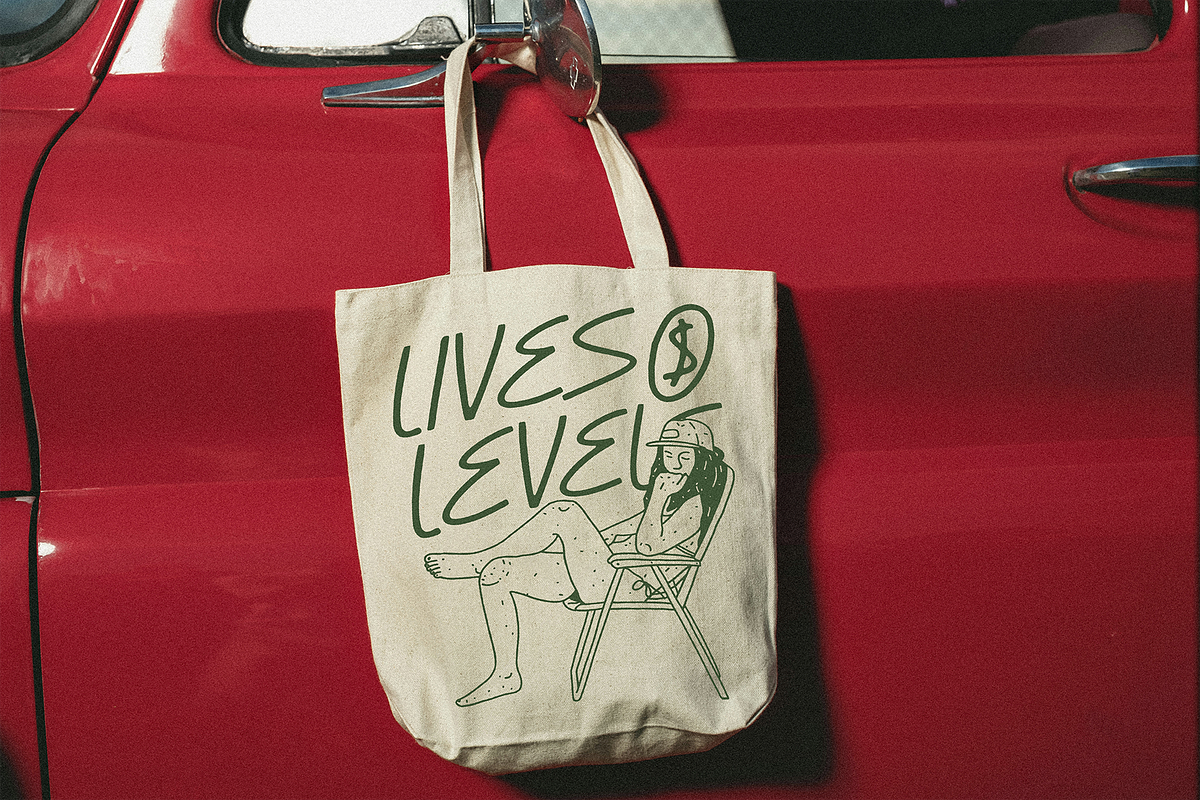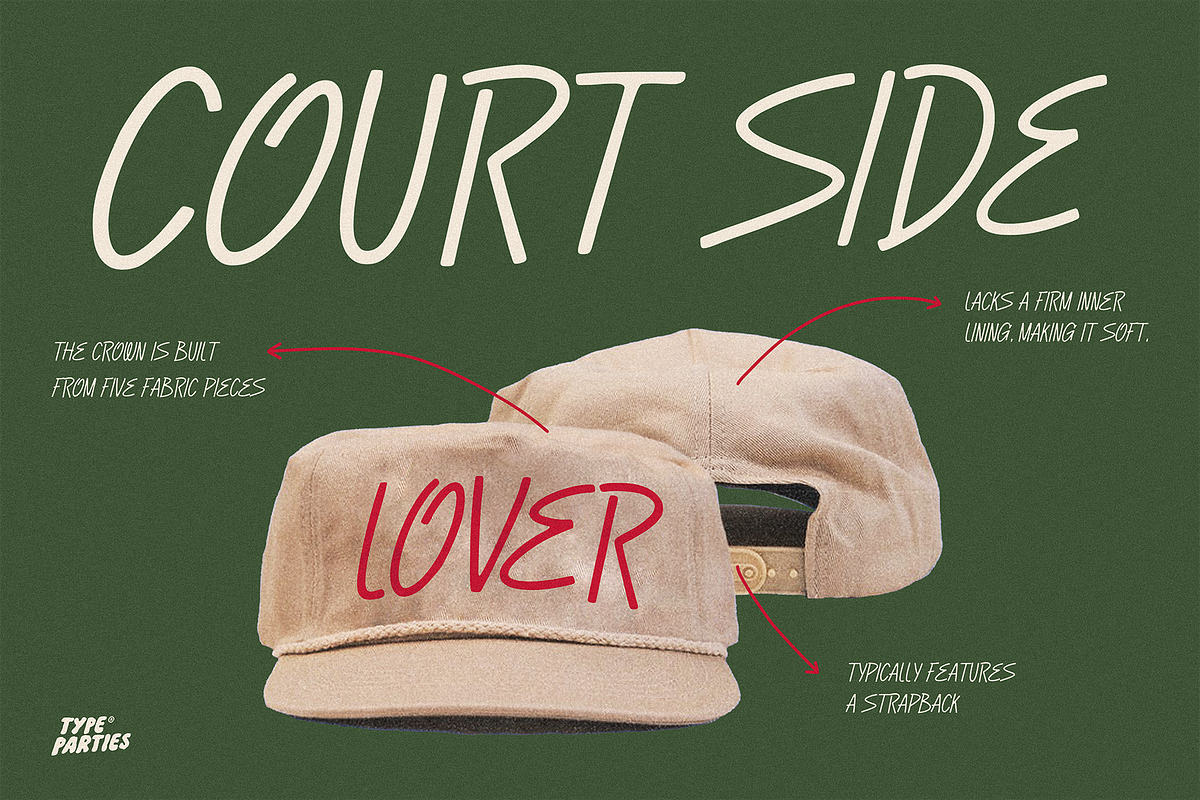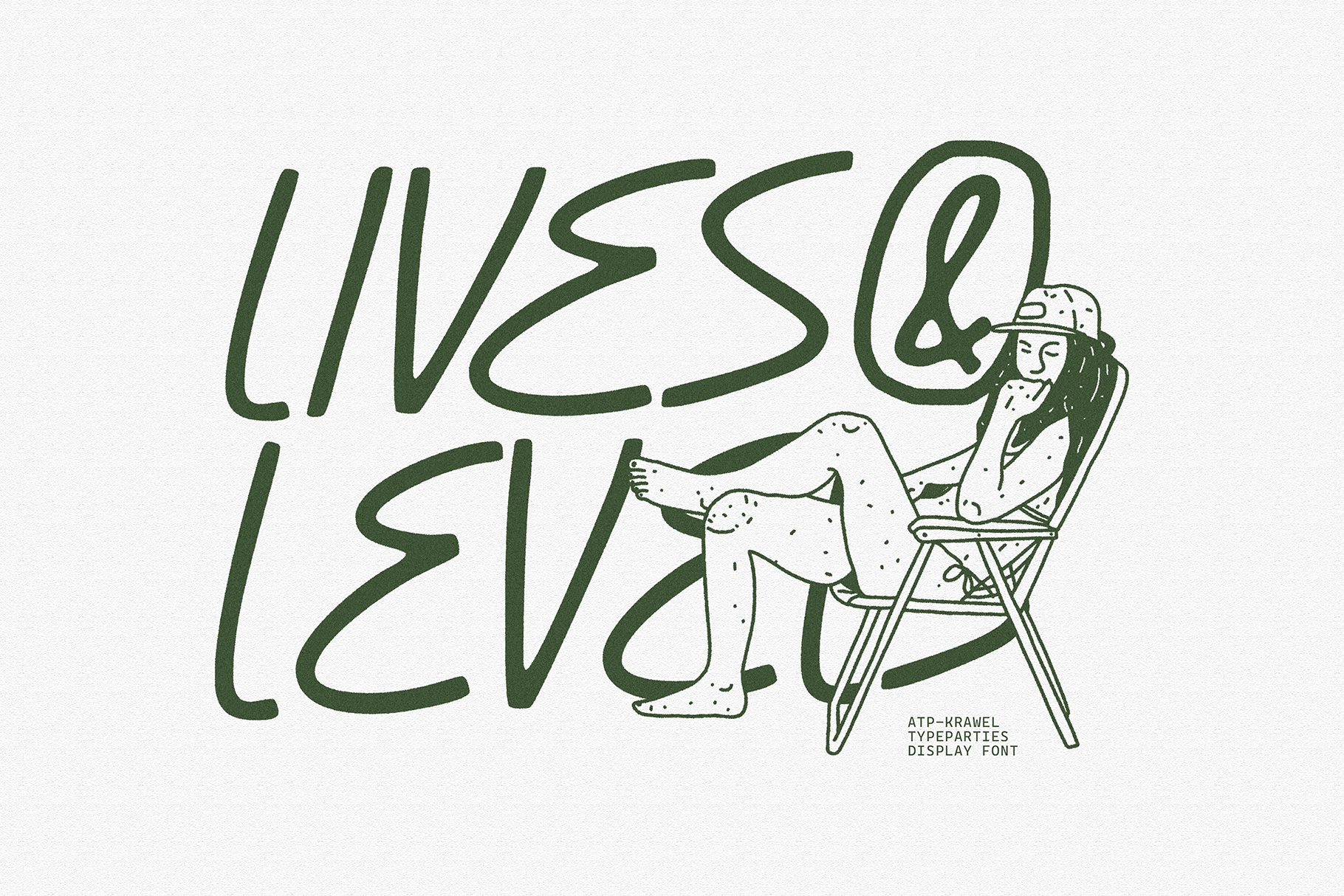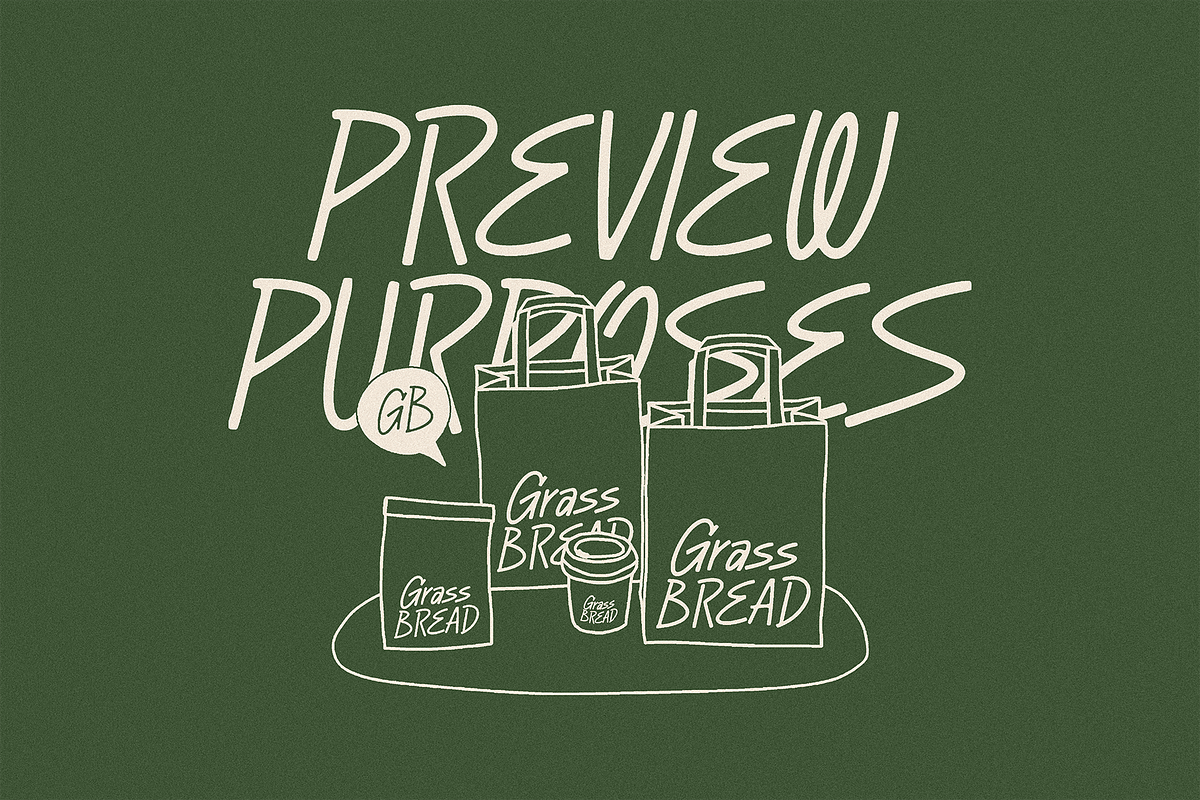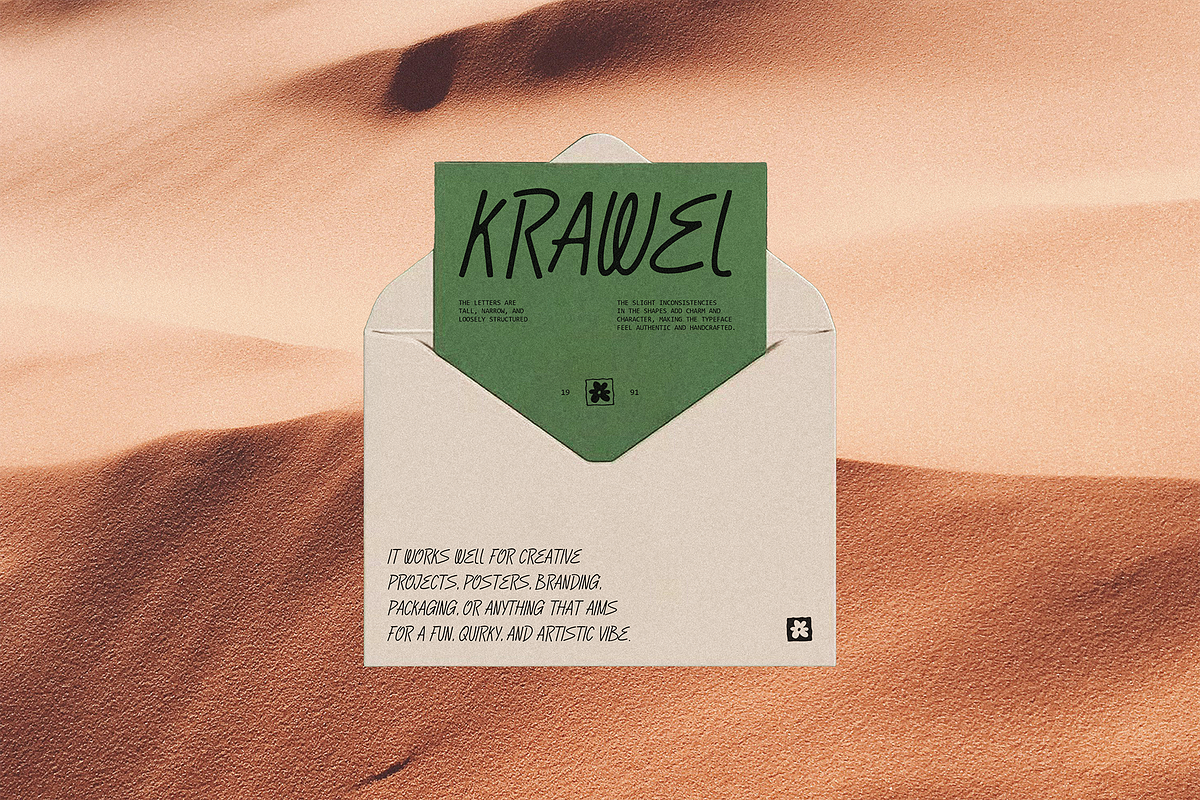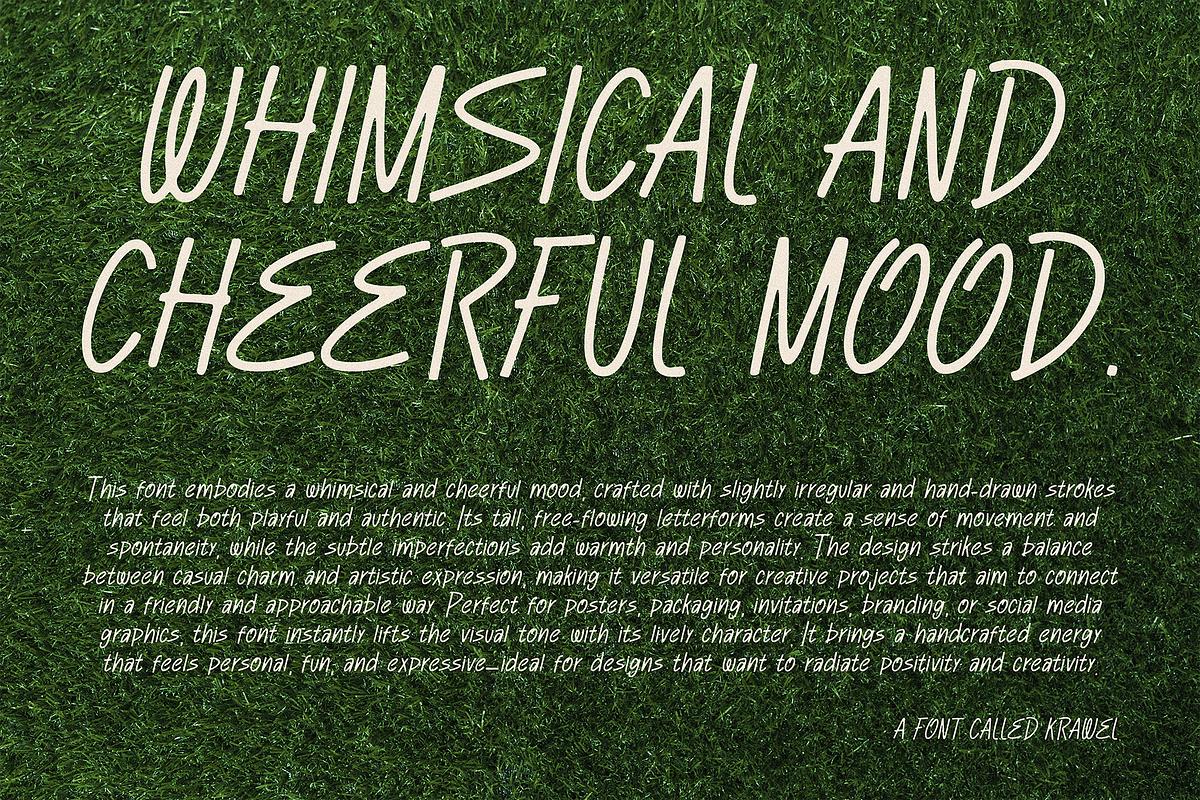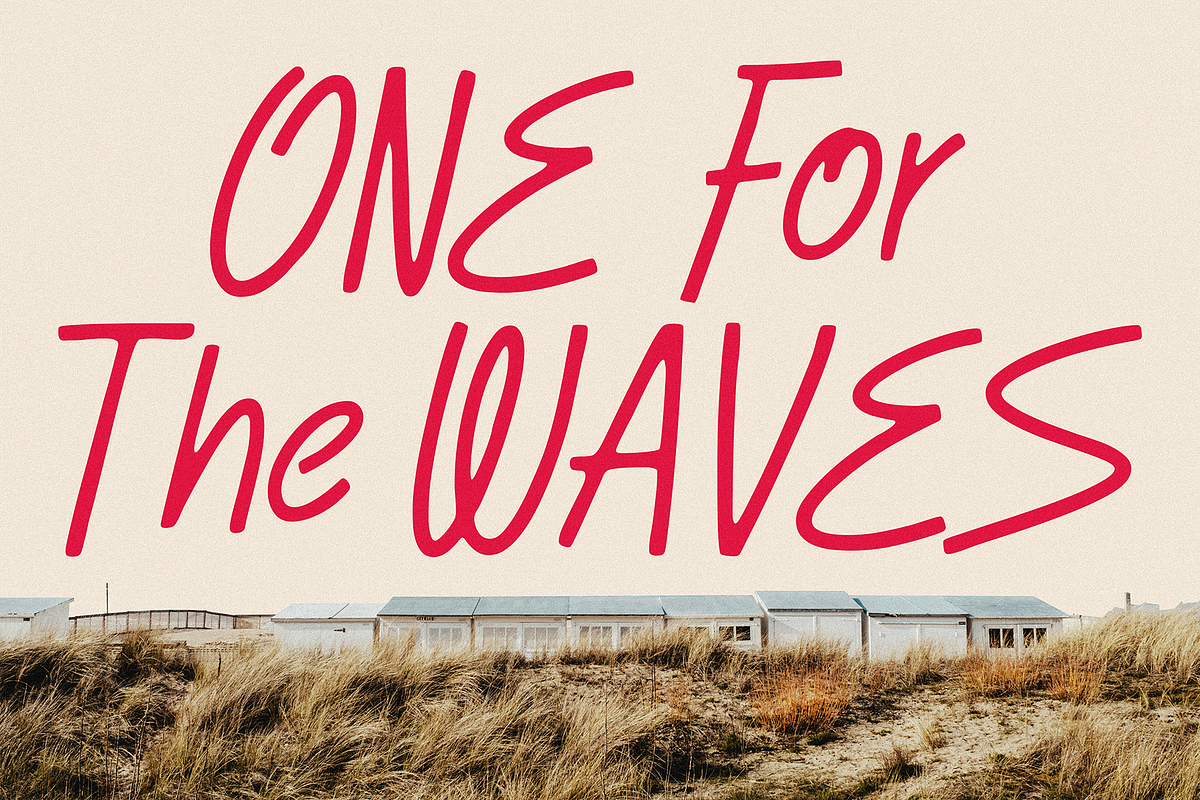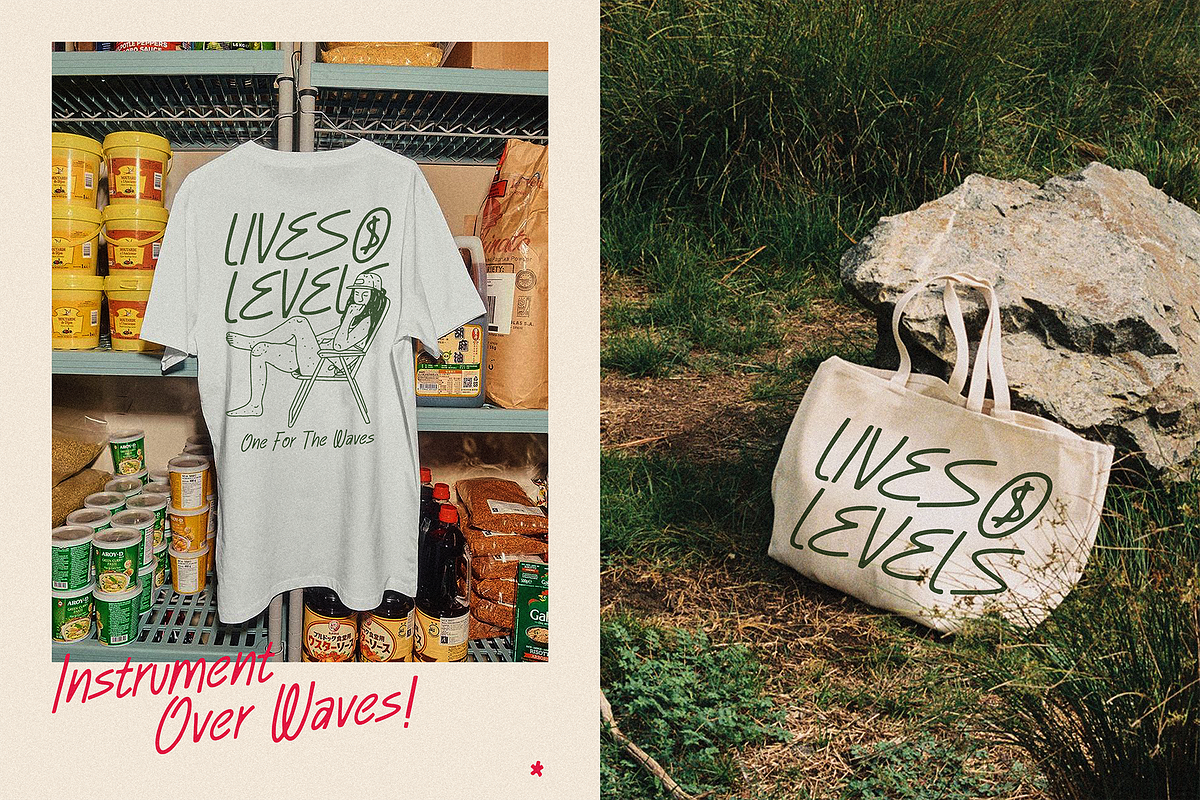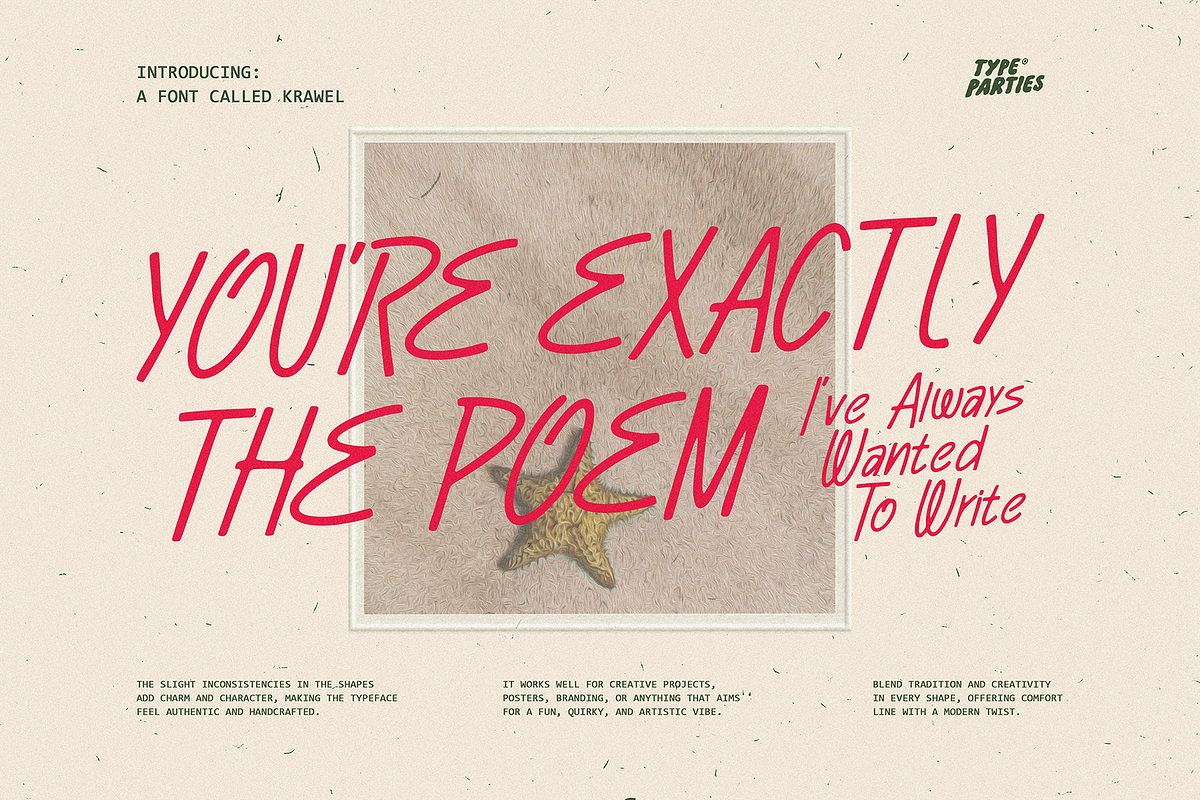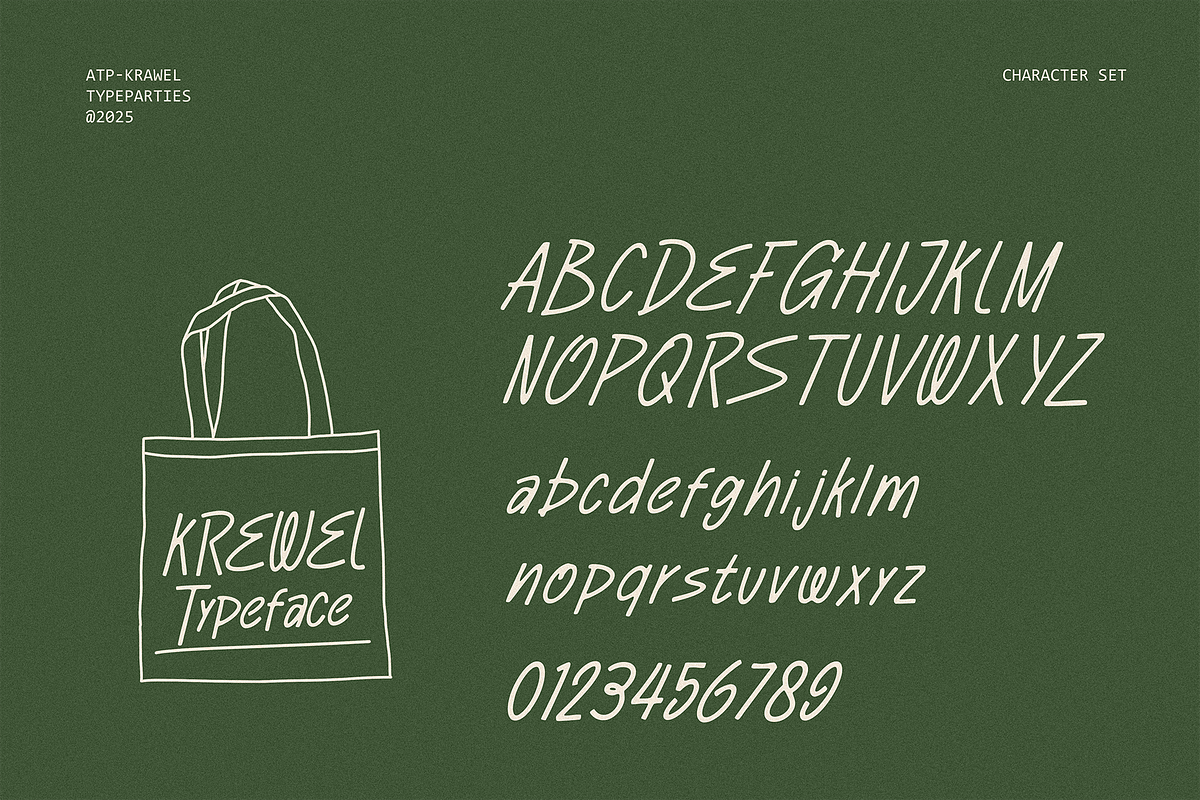
Krawel - Handwritten Brush Font
This font has a hand-drawn, playful, and slightly irregular style. The letters are tall, narrow, and loosely structured, giving them an organic and natural flow. Each stroke feels casual and spontaneous, creating a friendly and approachable personality. The slight inconsistencies in the shapes add charm and character, making the typeface feel authentic and handcrafted.
It works well for creative projects, posters, branding, packaging, or anything that aims for a fun, quirky, and artistic vibe. The extra decorative elements, like the flower illustrations, enhance its whimsical and cheerful mood.